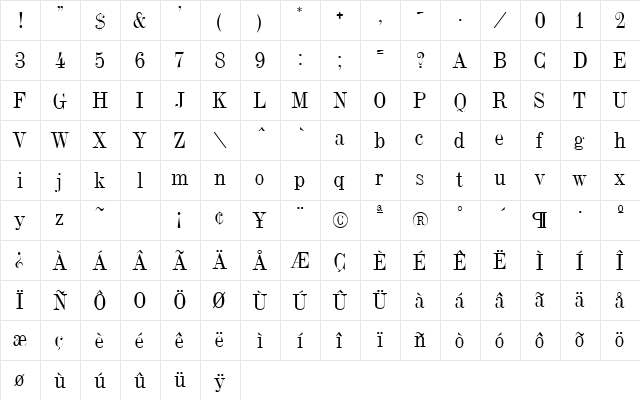
Toys In The Attic 1 (Plain):001.001
Design Context for Toys In The Attic 1 Typeface
Toys In The Attic 1 offers clean, dependable letterforms without strong stylistic allegiance, making it a practical choice for designers who need flexibility.